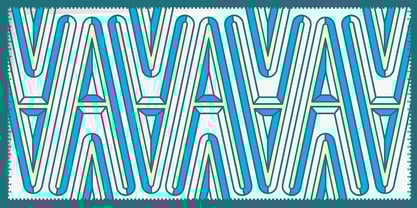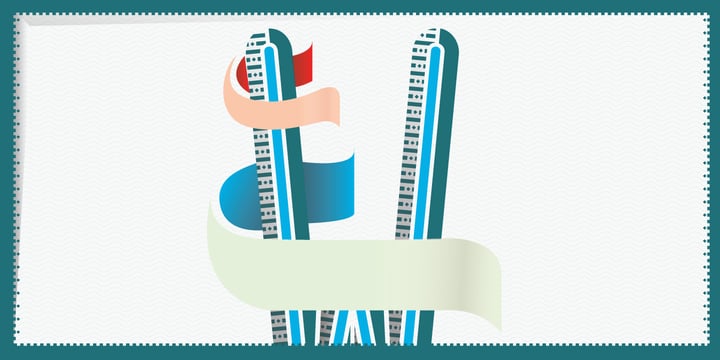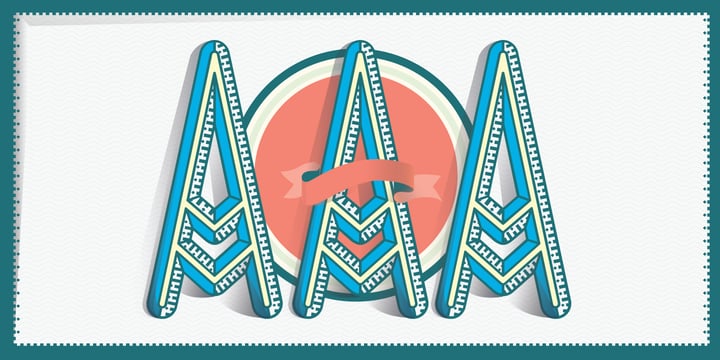
YWFT Nim
YWFT Nim by YouWorkForThem
YWFT Nim Font Family was published by YouWorkForThem. YWFT Nim contains 5 styles and family package options. More about this family
About YWFT Nim Font Family
YWFT Nim is all about layering. Bevel effects, outline effects, 3d effects, shadow effects--all are possible and uniquely powerful with YWFT Nim, making for a near-infinite amount of variety and style. Modern and clean, with a nod to architectural forms and figures, YWFT Nim is ideal for striking headlines and posters, and declarative of a strong, individual functionality.